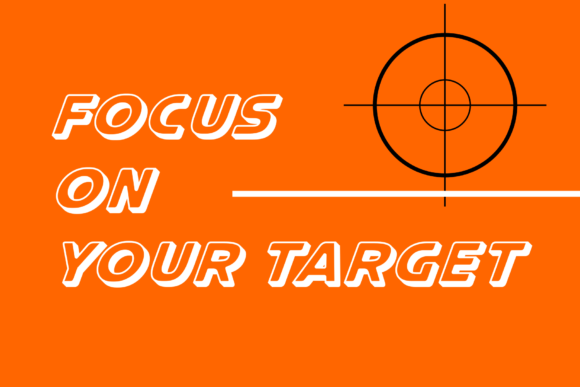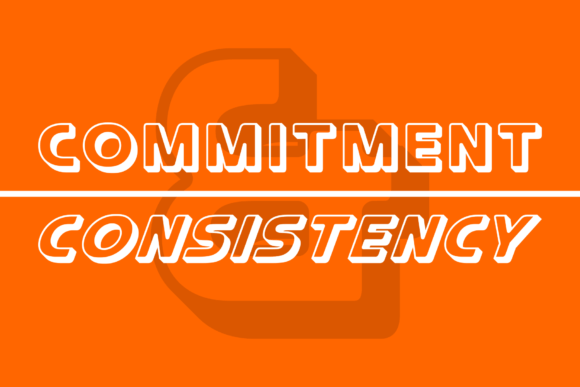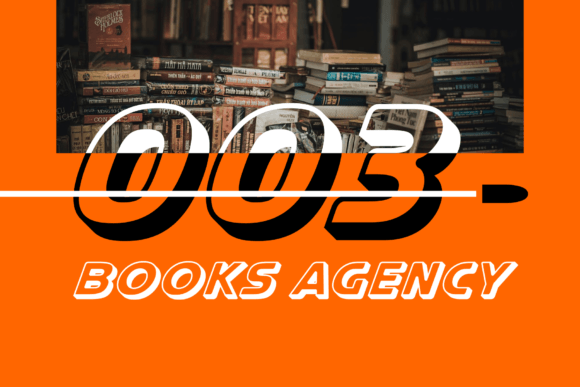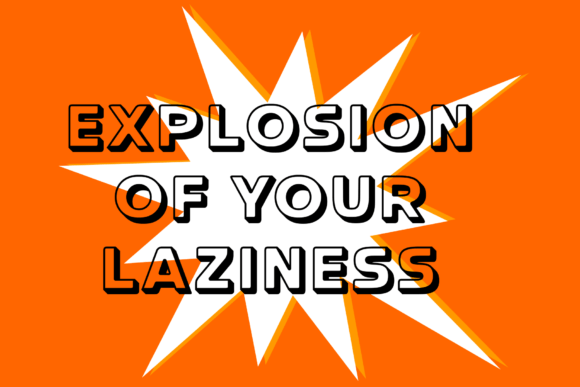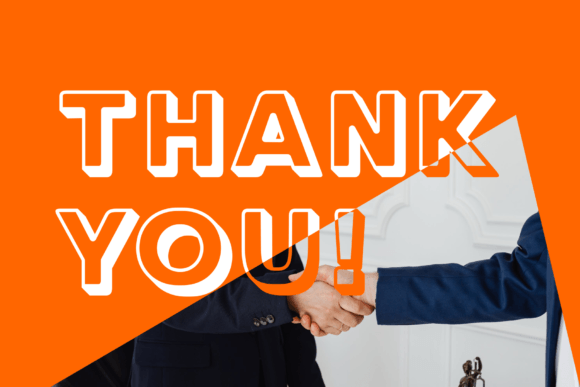
Introducing Equines Font: The Ultimate Display Font for Bold and Elegant Lettering
In the world of typography, a well-designed font can make all the difference in creating a lasting impression. For designers and crafters looking for a font that exudes modernity, strength, and elegance, Equines Font is an excellent choice. This versatile font family is specifically designed for display purposes, making it perfect for branding, logos, banners, and any lettering that requires bold and clear letters.
The Design Philosophy Behind Equines Font
Equines Font boasts a modern, thick, and strong appearance that is sure to grab attention. However, what sets it apart from other bold fonts is its unique rounding feature. The corners of the letters are subtly rounded, giving them a smooth and dynamic appearance. This cross-system design approach makes the word display strong, elegant, and highly legible, even at larger font sizes.
Key Features of Equines Font
- Modern and Bold Appearance: Equines Font features a thick and strong design that is perfect for making a statement.
- Rounding Feature: The subtle rounding of the corners adds an artistic touch, making the font more elegant and dynamic.
- Versatile and Adaptable: Suitable for a wide range of applications, including branding, logos, banners, and more.
- Cross-System Design: Ensures consistency and legibility across different platforms and devices.
Use Cases for Equines Font
Equines Font is an incredibly versatile font family that can be used in various design projects. Here are some examples:
- Branding and Logos: Create a lasting impression with a bold and elegant logo that stands out.
- Banners and Posters: Draw attention with eye-catching headlines and titles that exude confidence and modernity.
- Packaging Design: Add a touch of sophistication to product packaging with bold and clear lettering.
- Digital Media: Use Equines Font in digital media, such as video titles, social media graphics, and website headers.
Tips for Using Equines Font Effectively
To get the most out of Equines Font, consider the following tips:
- Pair with Complementary Fonts: Combine Equines Font with simpler fonts to create visual contrast and hierarchy.
- Experiment with Colors: Take advantage of the font’s bold appearance by using bright and contrasting colors.
- Pay Attention to Spacing: Ensure that the letters have sufficient spacing to maintain legibility and visual appeal.
Equines Font is an exceptional display font that offers a unique blend of modernity, strength, and elegance. Its versatility and adaptability make it an excellent choice for designers and crafters looking to create bold and clear lettering for various applications. With its rounding feature and cross-system design, Equines Font is sure to elevate your design projects and leave a lasting impression.